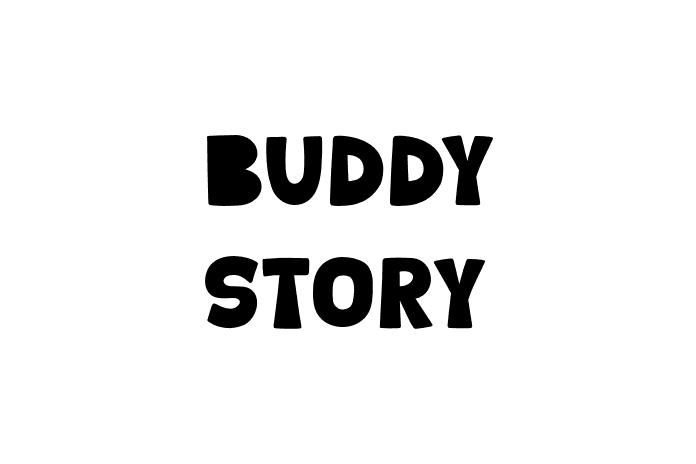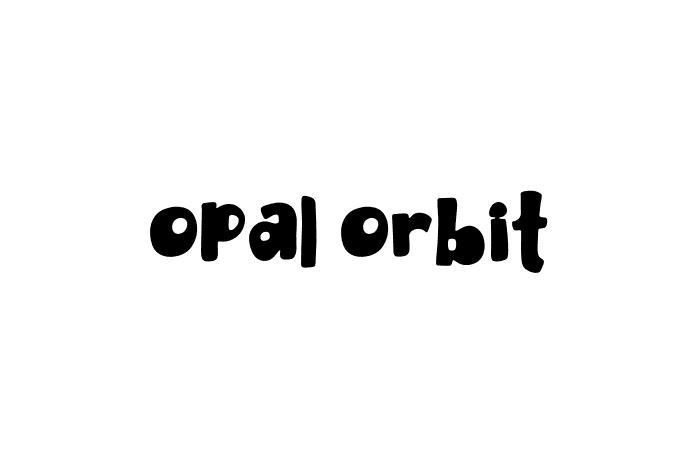
Chubby Rounded
Introducing the new Chubby Rounded Font, is a beautiful and Regular modern display cartoon typeface Great font for Video Games Fonts, Game Logo Design, poster title, headline, packaging,apparel projects, signature, album cover, this font designed by IMAGEX is available for free download and personal use.
Font name Chubby Rounded
Font designer IMAGEX
Font Family Chubby Rounded
Typeface classification Cartoon